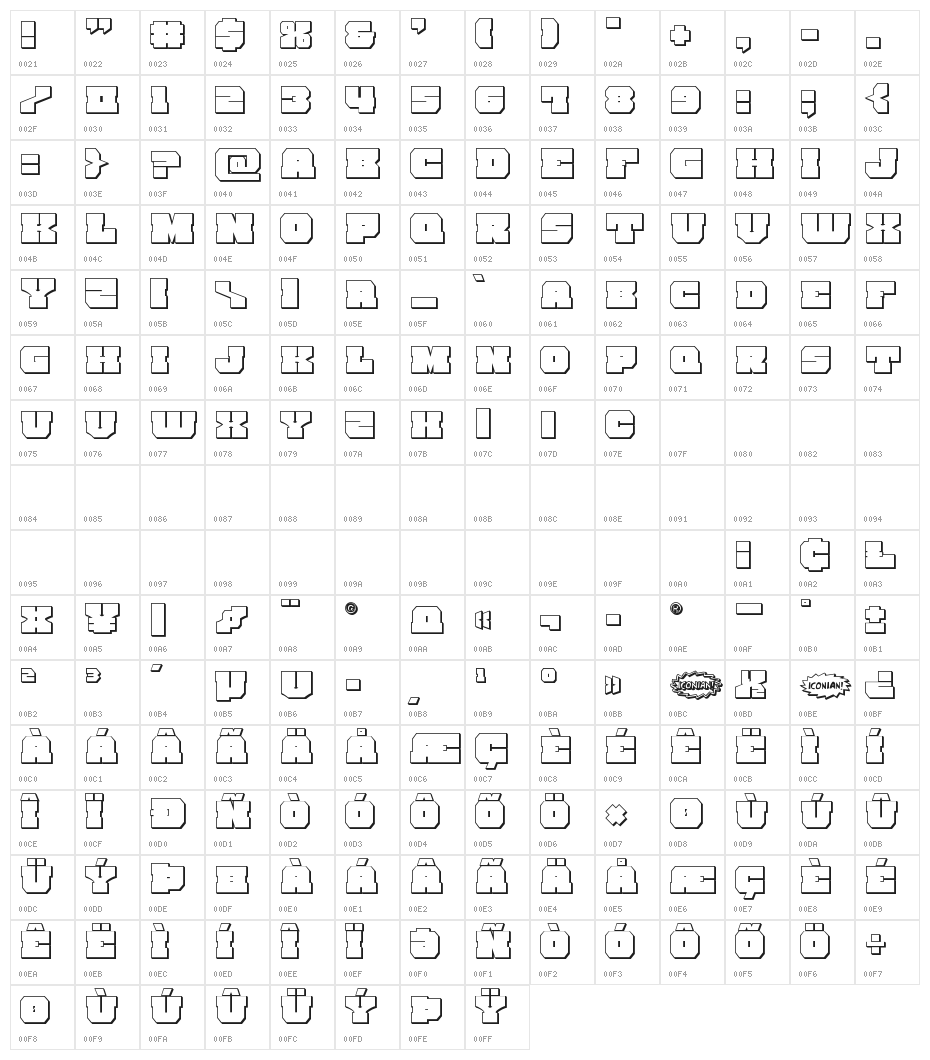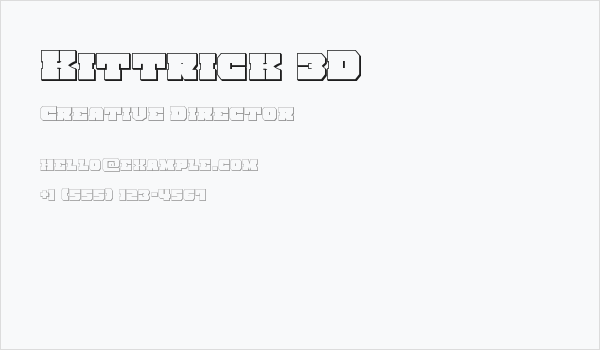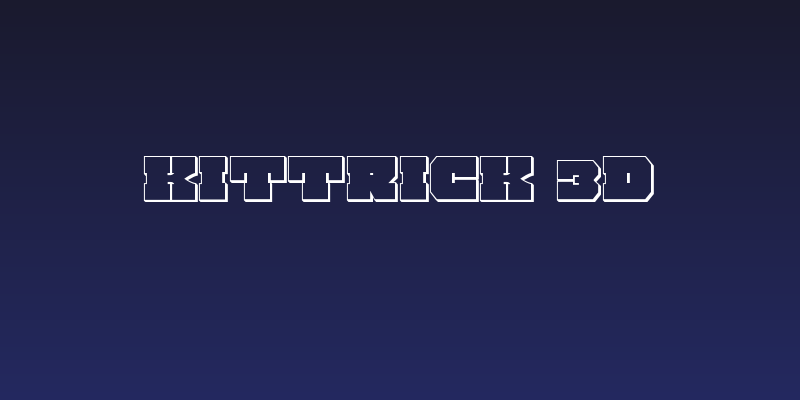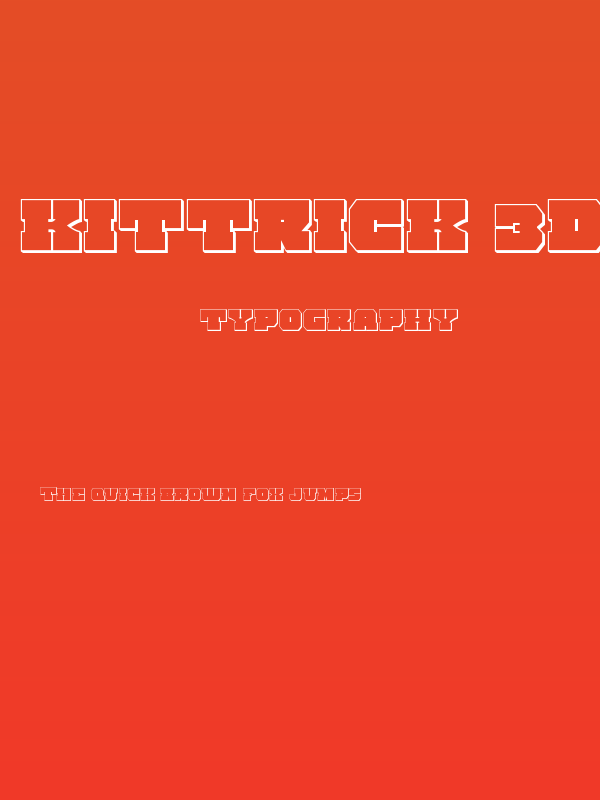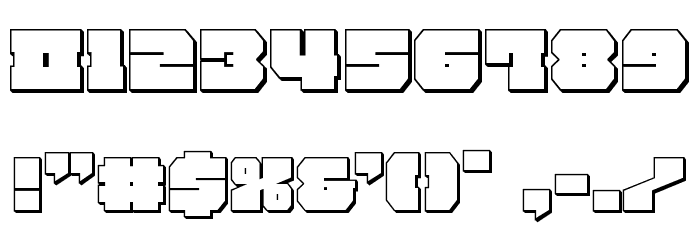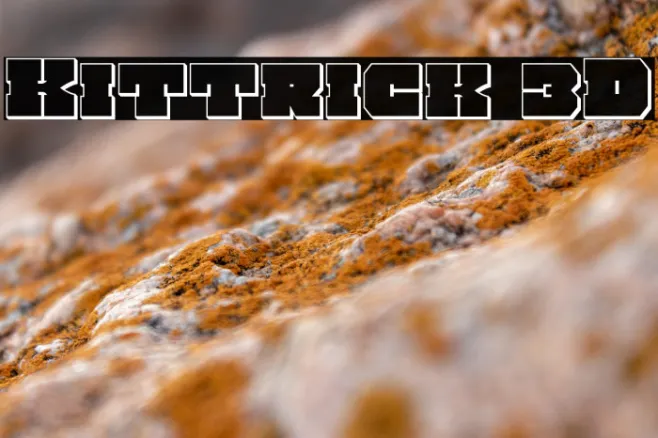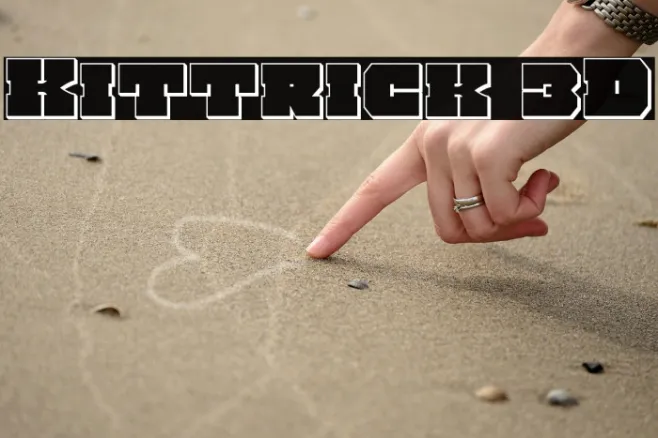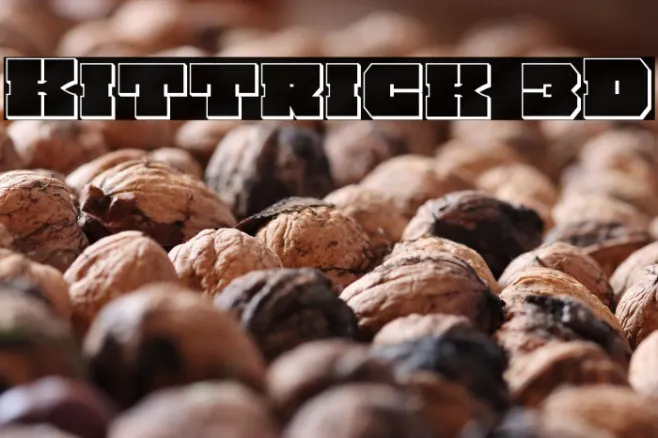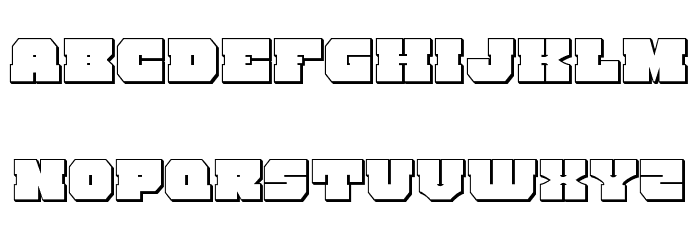
Kittrick 3D Font
Kittrick 3D Description
This font features a bold, three-dimensional block style with a strong geometric presence. The characters are designed with a thick outline that enhances their 3D effect, making them stand out prominently. Each letter and number has a uniform width, contributing to a cohesive and structured appearance. The sharp edges and angular shapes give it a modern and industrial feel, suitable for creating impactful visual statements. The font maintains consistent spacing between characters, ensuring readability while emphasizing its bold design. Special characters are crafted with the same attention to detail, maintaining the overall aesthetic.